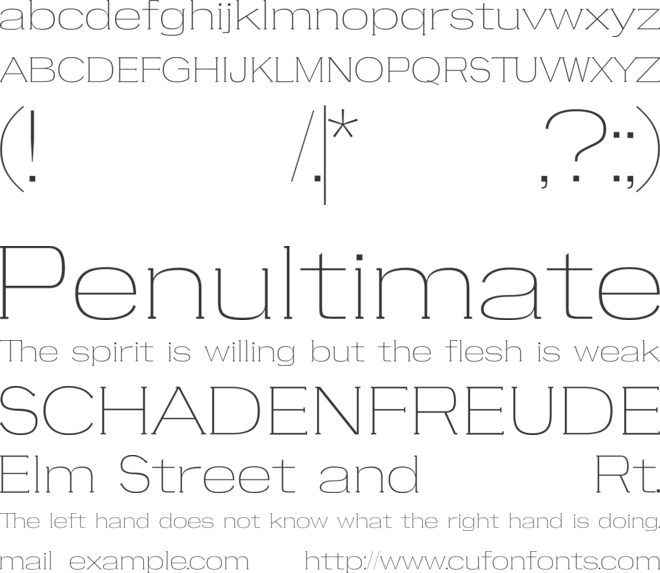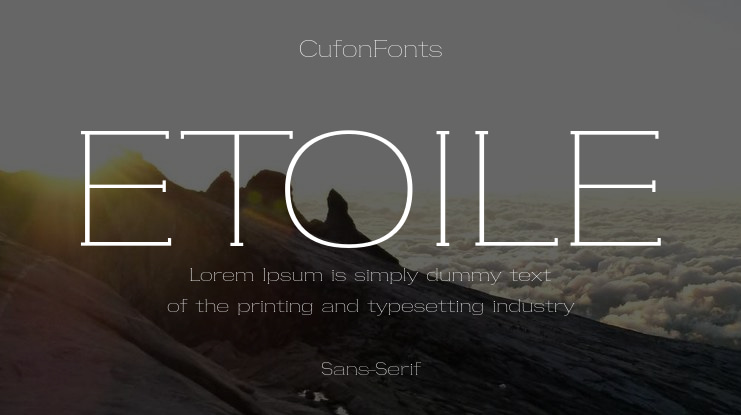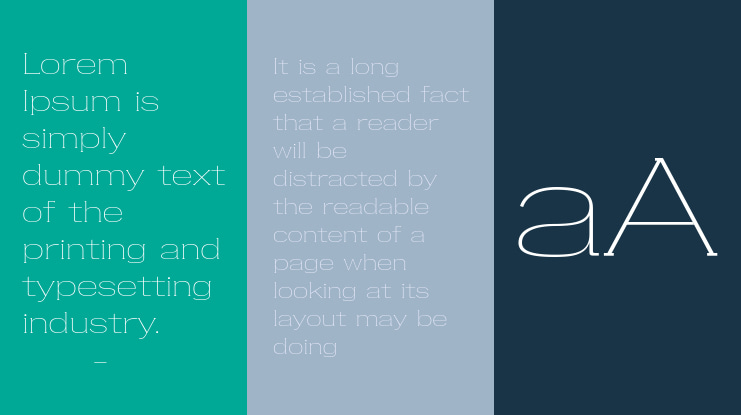
ETOILE Font Family
Etoile is a minimalist slab serif with multilingual support—ideal for poetic branding, editorial elegance, and nature-inspired packaging.